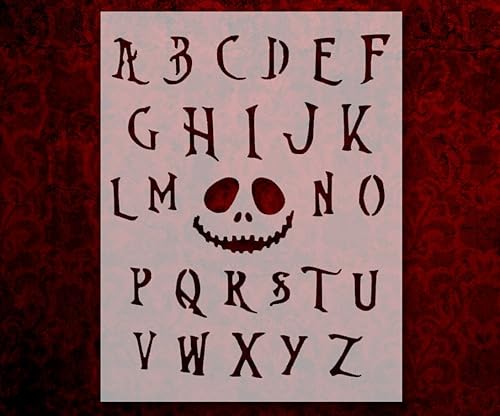
Nightmare Before Christmas Font Family This remarkable font has available only in regular style with 85 number of characters in a free version But in its paid version, you will get everything like ligatures, numerals as well as unique glyphs also Just because of its vast designing support, the tradition of this gothic font has increasing day by day For download its free version you just click on a single button inserted below. Nightmare Before Christmas Font Installable and Cut File and Printable This Purchase includes an SVG, PNG, EPS and a DXF file, making it perfect for use in Cricut Design Space, Sure Cuts A Lot, Make The Cut, and the Silhouette Designs can be sized or layered according to your project needs. Fonts2u offers a large collection of free fonts Download free fonts for Windows and Macintosh Nightmare Before Christmas The data will be supplied in a Zip archive This will be a single zip file containing selected font file(s) To start downloading please confirm your request Can't read the code?.